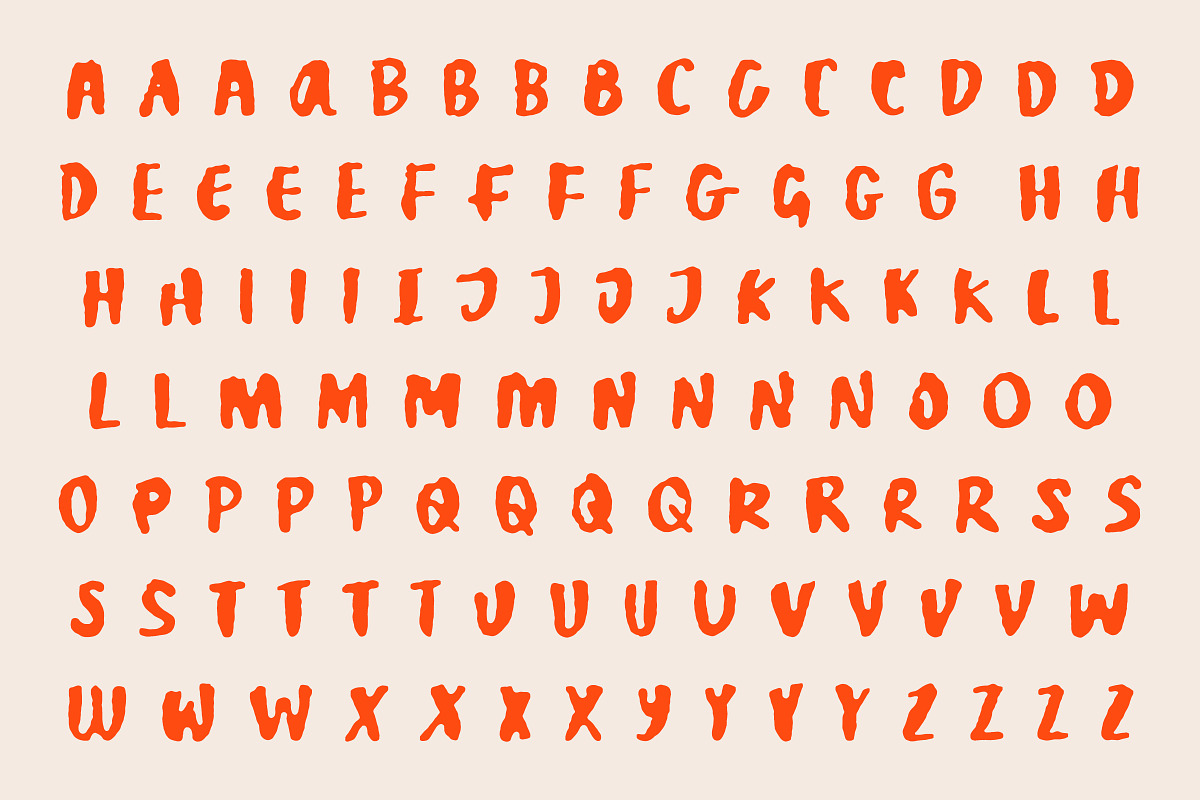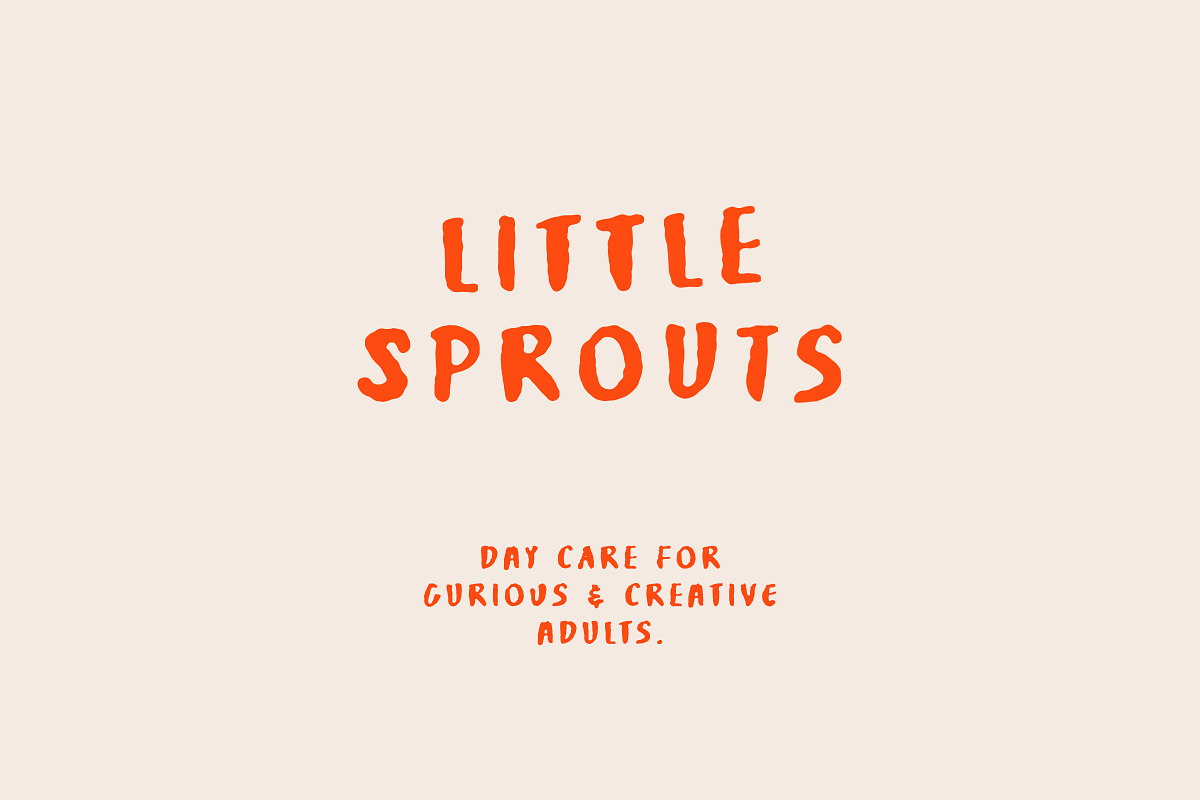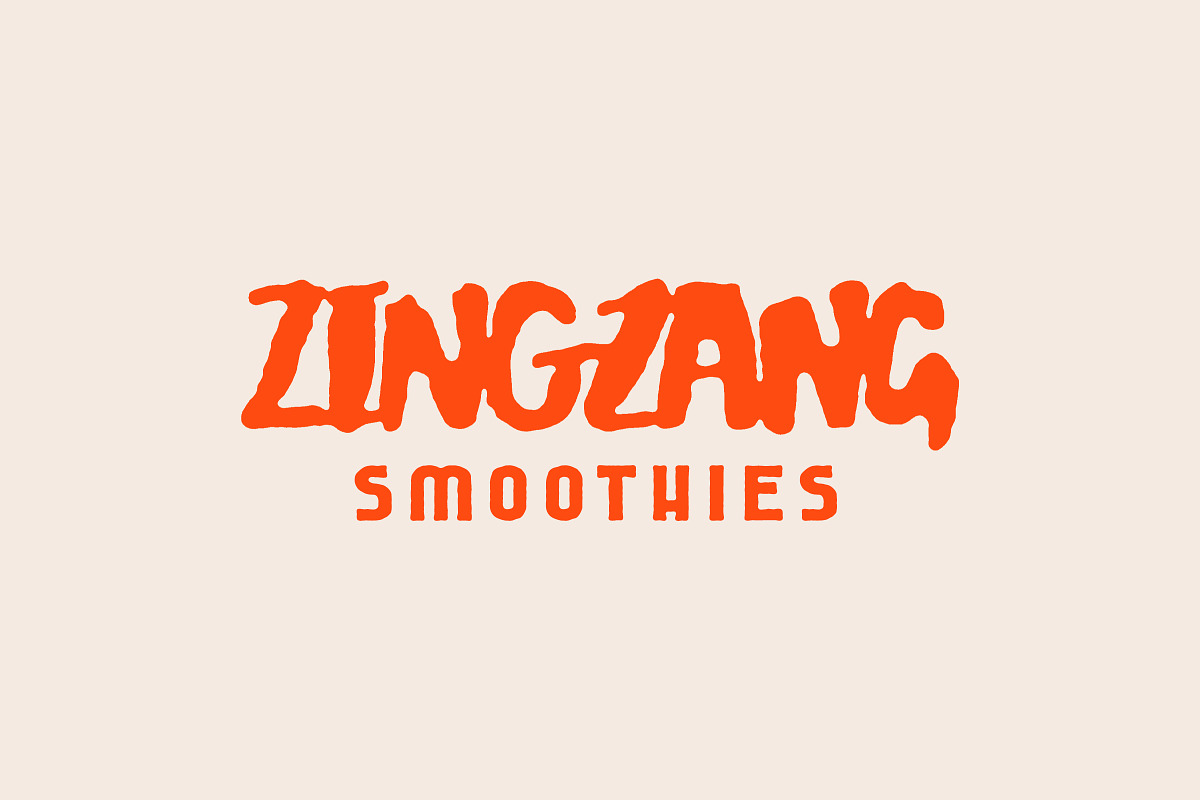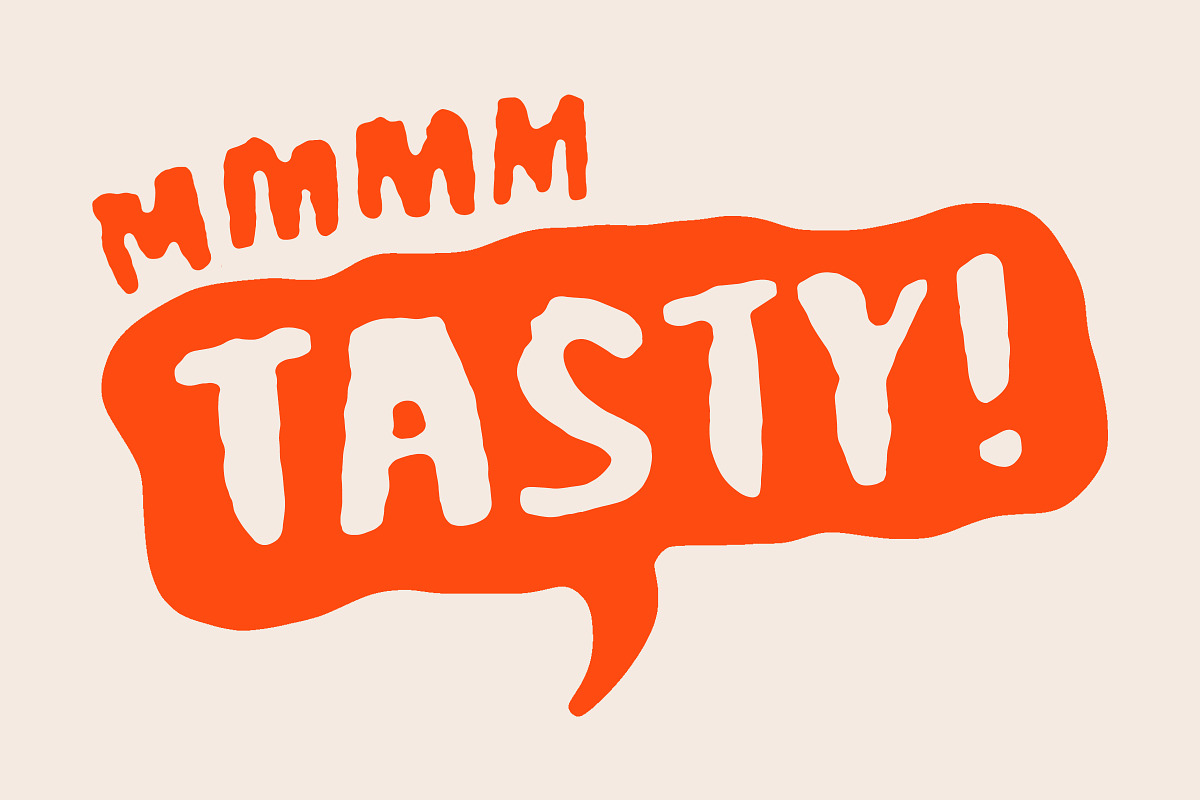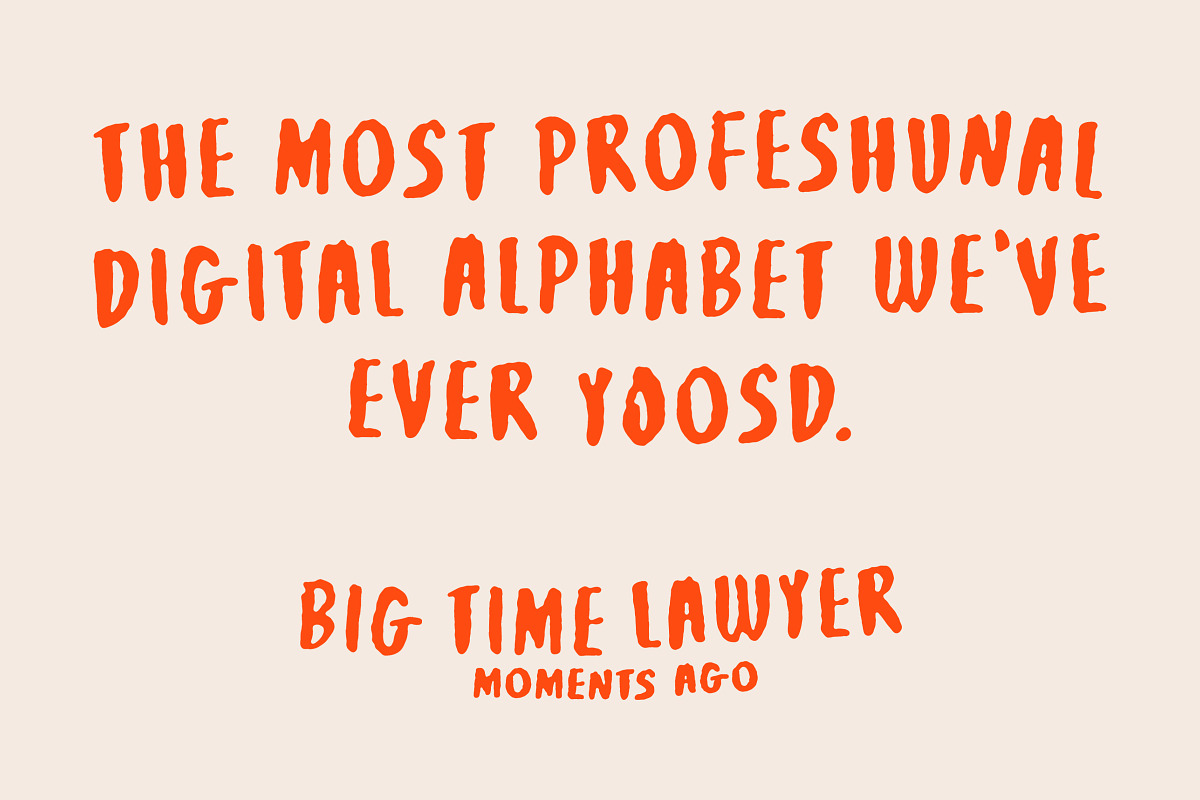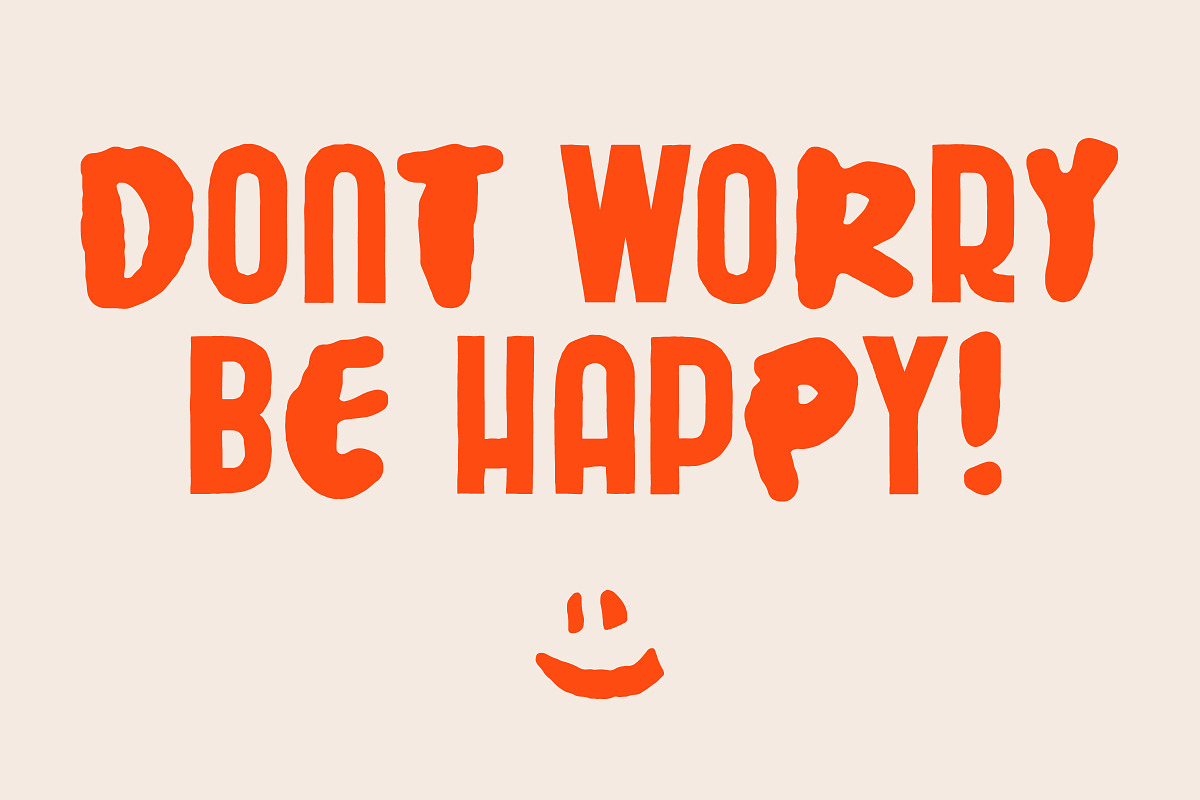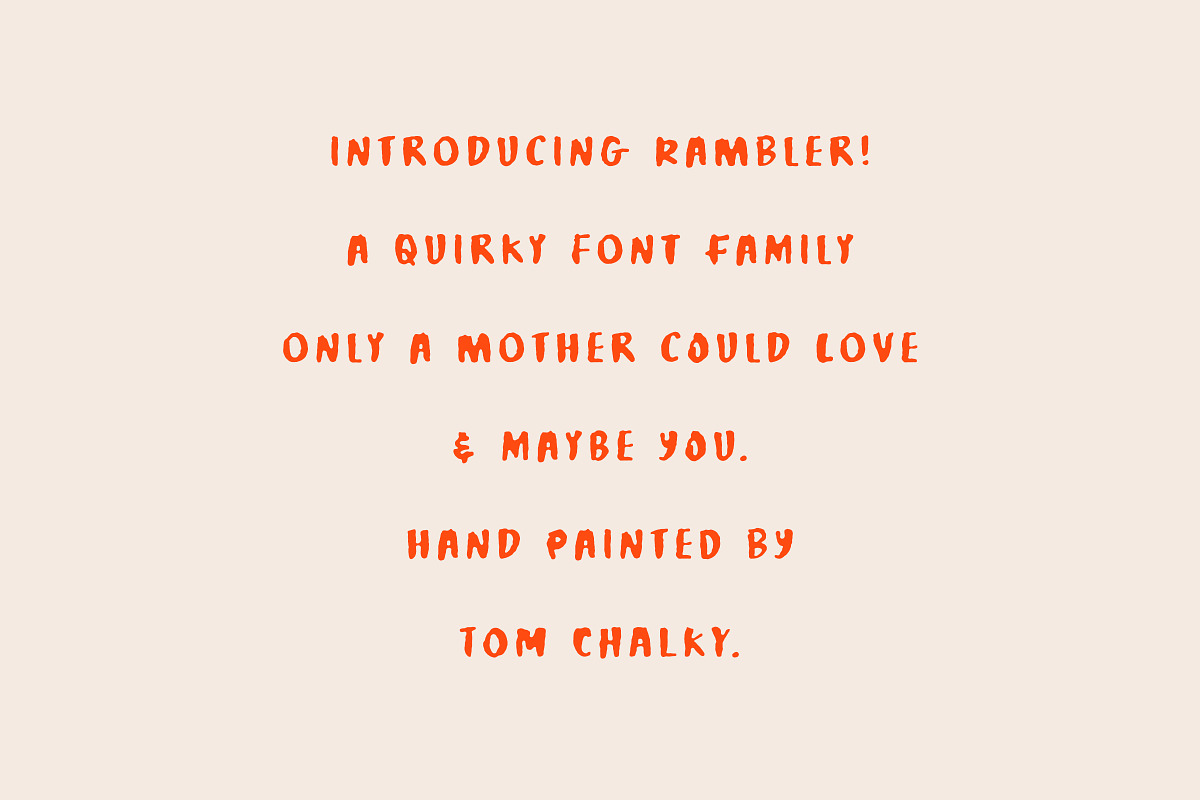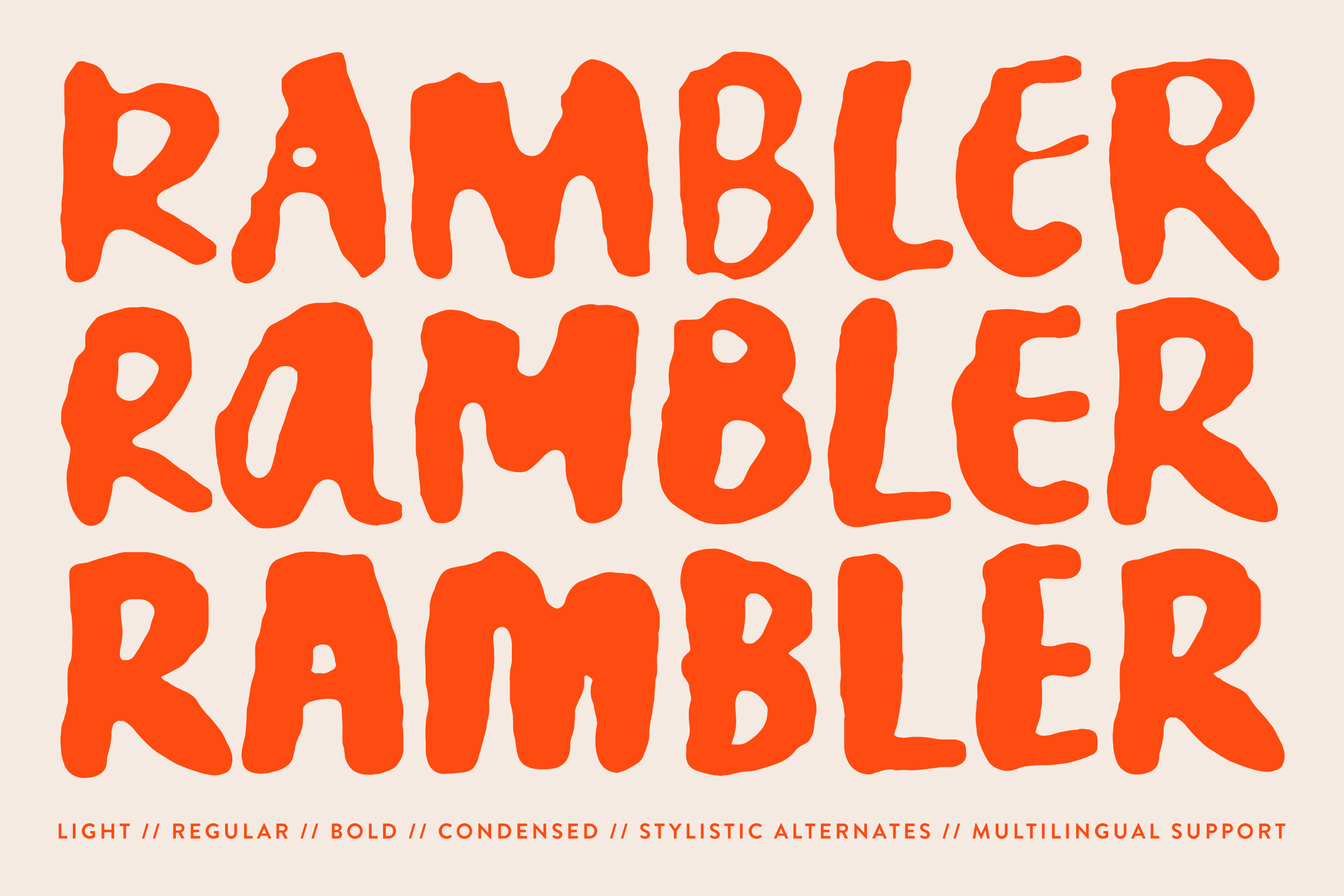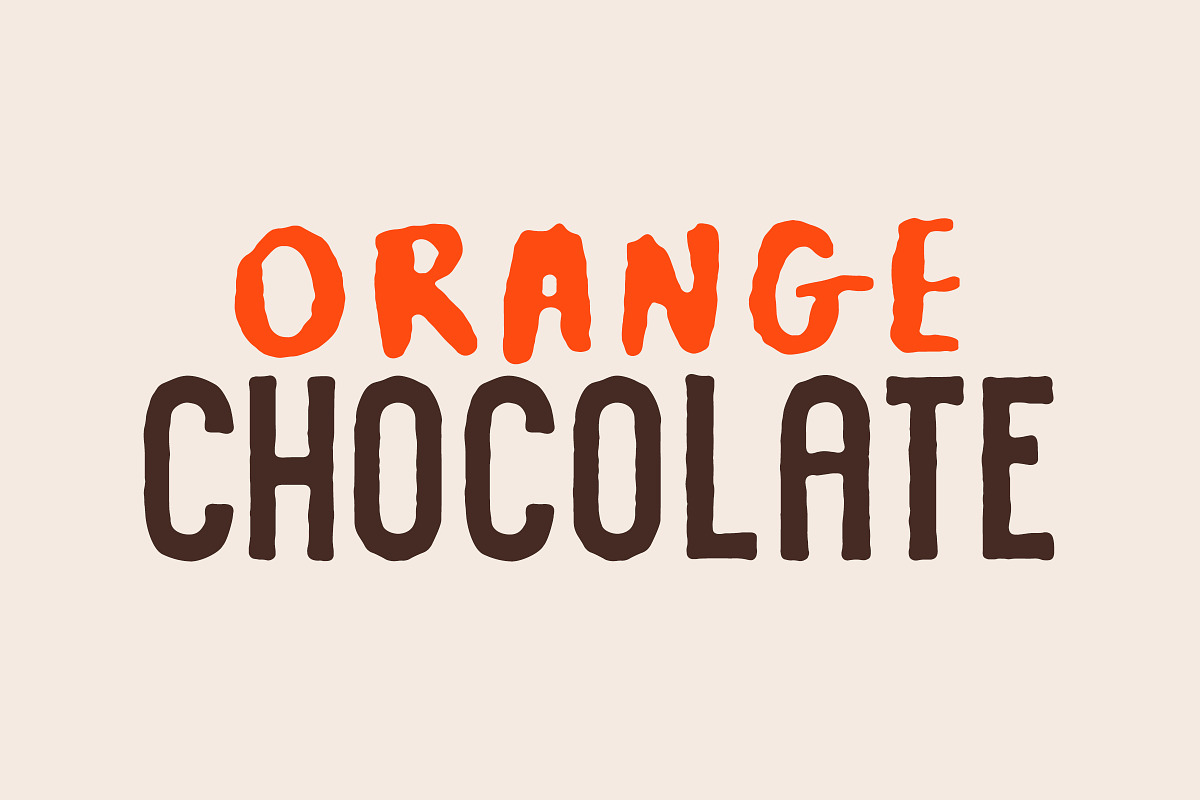
TC Rambler - Big & Bold Brush Font
Introducing Rambler – A Quirky Hand-Painted Brush Font with a Playful Personality
Say hello to Rambler, a handcrafted brush font that’s brimming with friendly charm and character. Designed to bring a lively, organic vibe to your projects, Rambler’s playful curves and natural imperfections make it the perfect choice for adding personality to your designs.
Whether you’re creating bold logos, vibrant food packaging, quirky branding, or fun social media posts, Rambler delivers a look that’s both eye-catching and approachable. Its hand-painted aesthetic ensures every letter feels authentic and full of life.
- Multiple Weights & Styles: Includes Light, Regular, Bold, and Condensed variations to suit a range of projects.
- Stylistic Alternates: Each letter has four alternates to keep your text fresh and dynamic.
- Multilingual Support: Covers a wide range of Latin-based languages.
- Versatility: It looks great in all sizes, making it perfect for logos, branding, packaging, posters, and anything that needs a handcrafted touch.